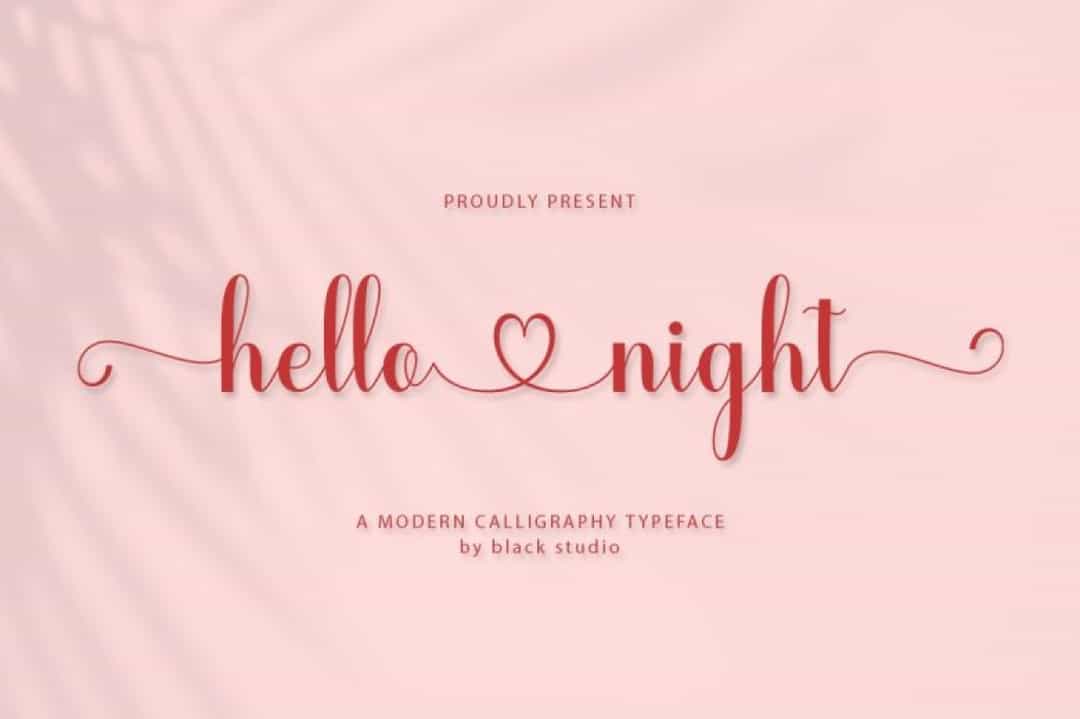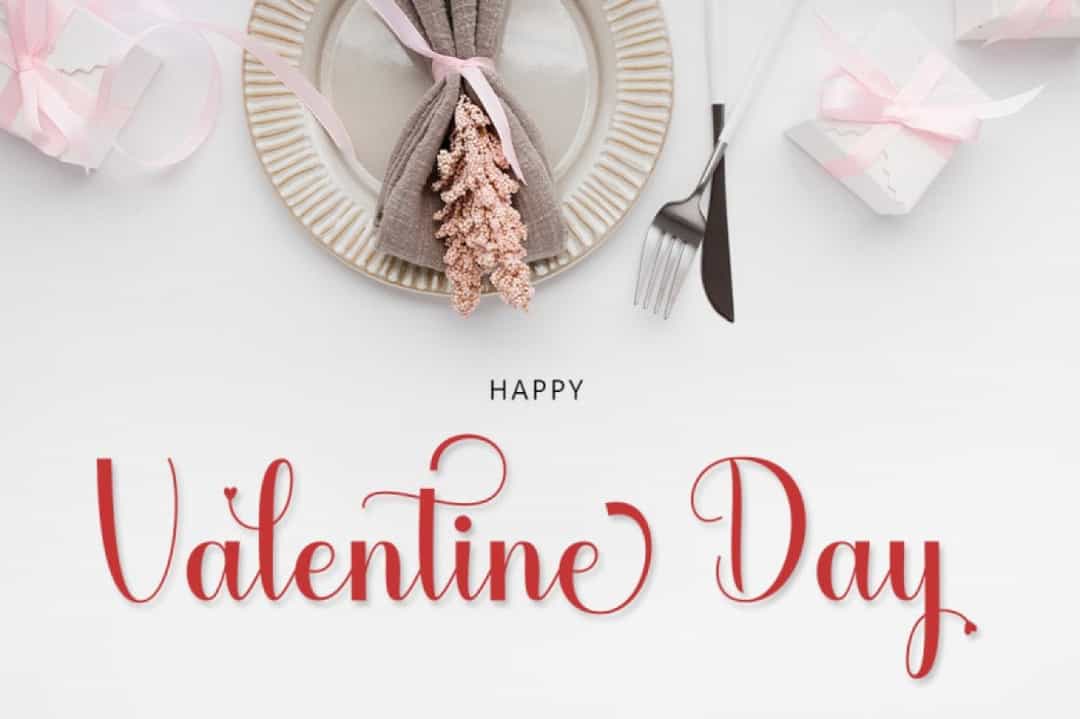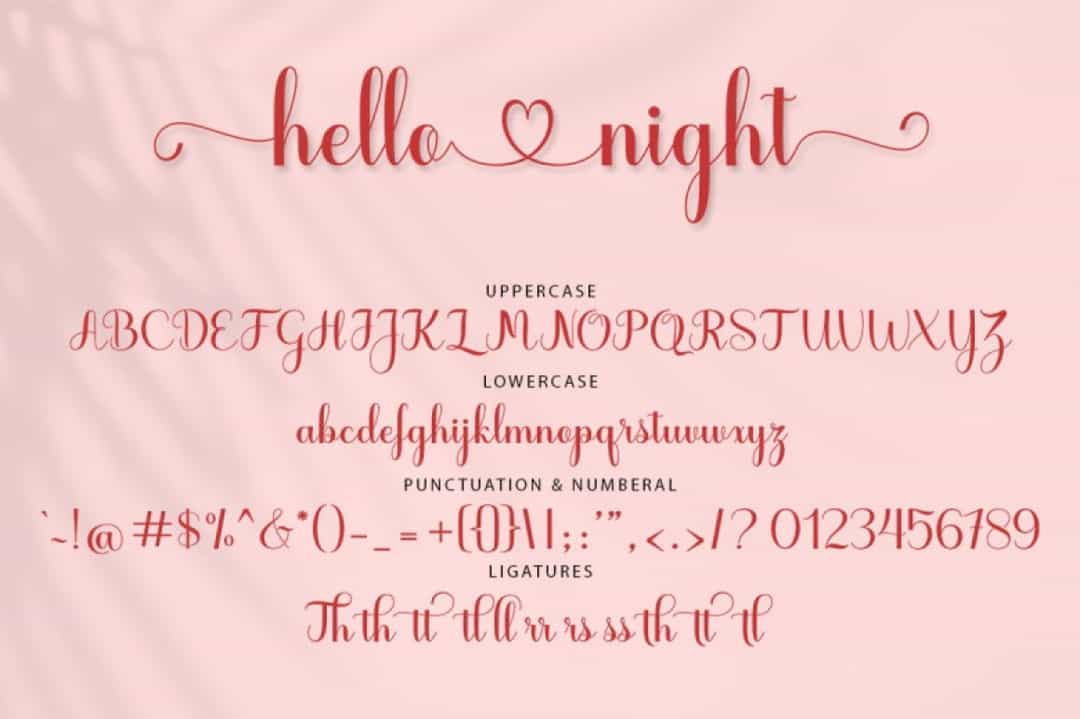
Hello Night is an invitingly easy-to-read script calligraphy font featuring some classic, bold, and enjoyable Vintage Script font features opentypes and glyphs in various styles for versatility and use in posters, T-shirts, signboards such as logos or news badges etc.